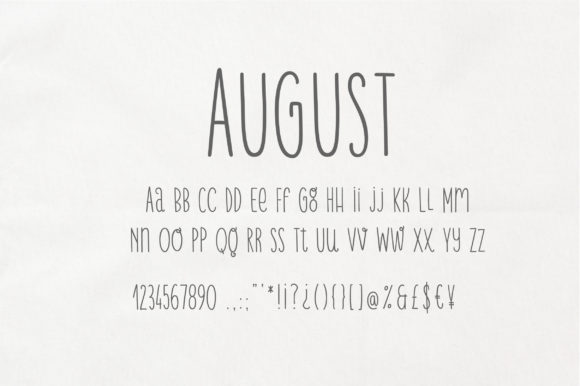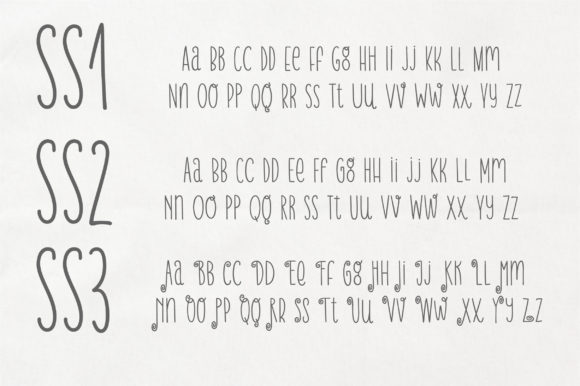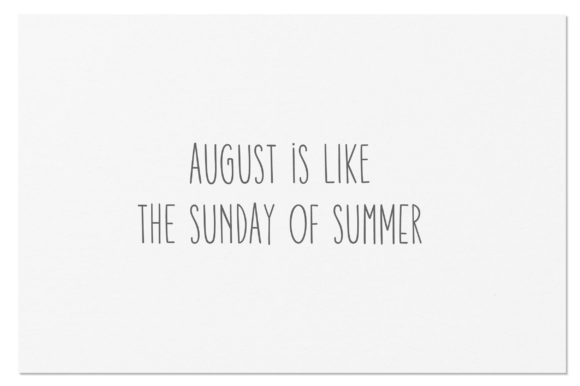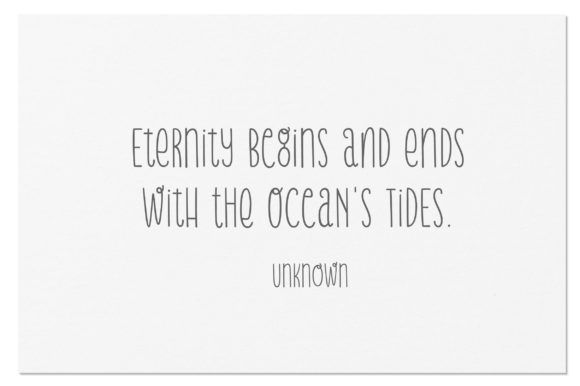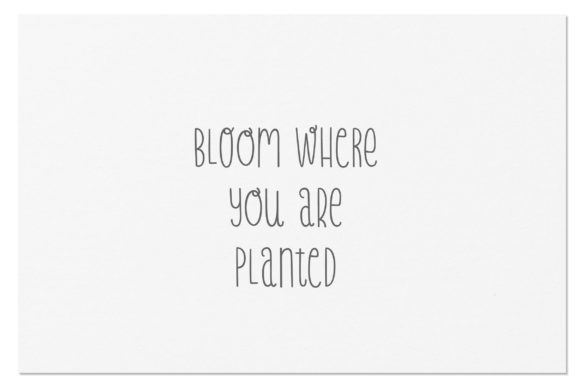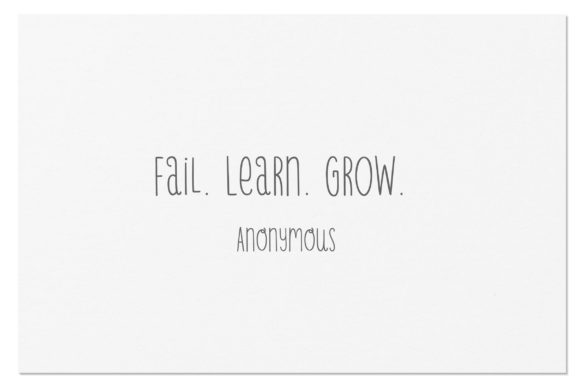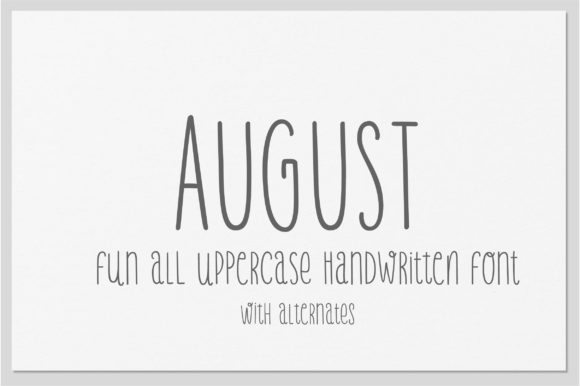
Introducing August Font: The Perfect Handwritten Font for Chalkboard Quotes and Teaching Materials
Are you a designer, teacher, or crafter looking for a font that can add a personal and realistic touch to your designs? Look no further than August Font, a cute and whimsical lettered handwritten font that’s perfect for creating chalkboard quotes, teaching materials, and more. In this article, we’ll take a closer look at August Font, its features, and how you can use it to elevate your designs.
What is August Font?
August Font is a beautifully crafted handwritten font that’s designed to mimic the look of authentic chalkboard writing. Its unique and whimsical style makes it perfect for creating eye-catching designs that are sure to grab attention. Whether you’re creating chalkboard quotes, teaching materials, or social media graphics, August Font is the perfect choice.
Features of August Font
So, what makes August Font so special? Here are just a few of its key features:
- Cute and Whimsical Design: August Font has a playful and charming design that’s sure to add a touch of personality to your designs.
- Authentic Look: The font’s authentic look makes it perfect for creating chalkboard quotes and teaching materials that look like they were written on a real chalkboard.
- Handwritten Style: August Font has a beautiful handwritten style that’s perfect for creating personal and realistic designs.
- Easy to Read: Despite its whimsical design, August Font is easy to read, making it perfect for creating teaching materials and other designs where readability is important.
How to Use August Font
August Font is incredibly versatile and can be used for a wide range of design projects. Here are just a few ideas to get you started:
- Chalkboard Quotes: Use August Font to create eye-catching chalkboard quotes that are perfect for social media, blogs, or even physical chalkboards.
- Teaching Materials: August Font is perfect for creating teaching materials, such as worksheets, posters, and presentations, that are engaging and easy to read.
- Social Media Graphics: Use August Font to create social media graphics that are sure to grab attention and add a personal touch to your online presence.
- Crafting Projects: August Font is also perfect for crafters who want to add a personal touch to their projects, such as scrapbooking, card making, and more.
Tips for Using August Font
Here are a few tips for getting the most out of August Font:
- Experiment with Colors: August Font looks great in a variety of colors, so don’t be afraid to experiment and find the perfect color scheme for your design.
- Mix and Match with Other Fonts: August Font pairs well with other fonts, so try mixing and matching it with other fonts to create a unique and eye-catching design.
- Use it for Headings and Titles: August Font is perfect for creating headings and titles that are sure to grab attention and add a touch of personality to your designs.
| Font Name | August Font |
| Author | sunday nomad |